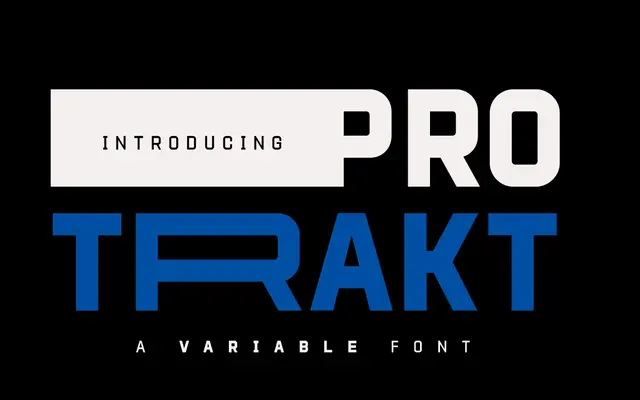
Protrakt Variable
A variable display sans with nine discrete width steps and seven weights, built around sport and city aesthetics.
Designed with sport and urban life as its reference points, this variable font offers continuous control over both weight and width through a single file. Nine static width variants are also included for software without variable font support, running from standard to Exp-Nine across seven weights from Light to Heavy. Alternate characters for a broad set of glyphs add further styling latitude for headline and poster work.
A variable sans built around an expanding width axis, intended primarily for display use in sport and urban contexts. Its nine discrete width steps and bold weight range push it firmly into display territory.